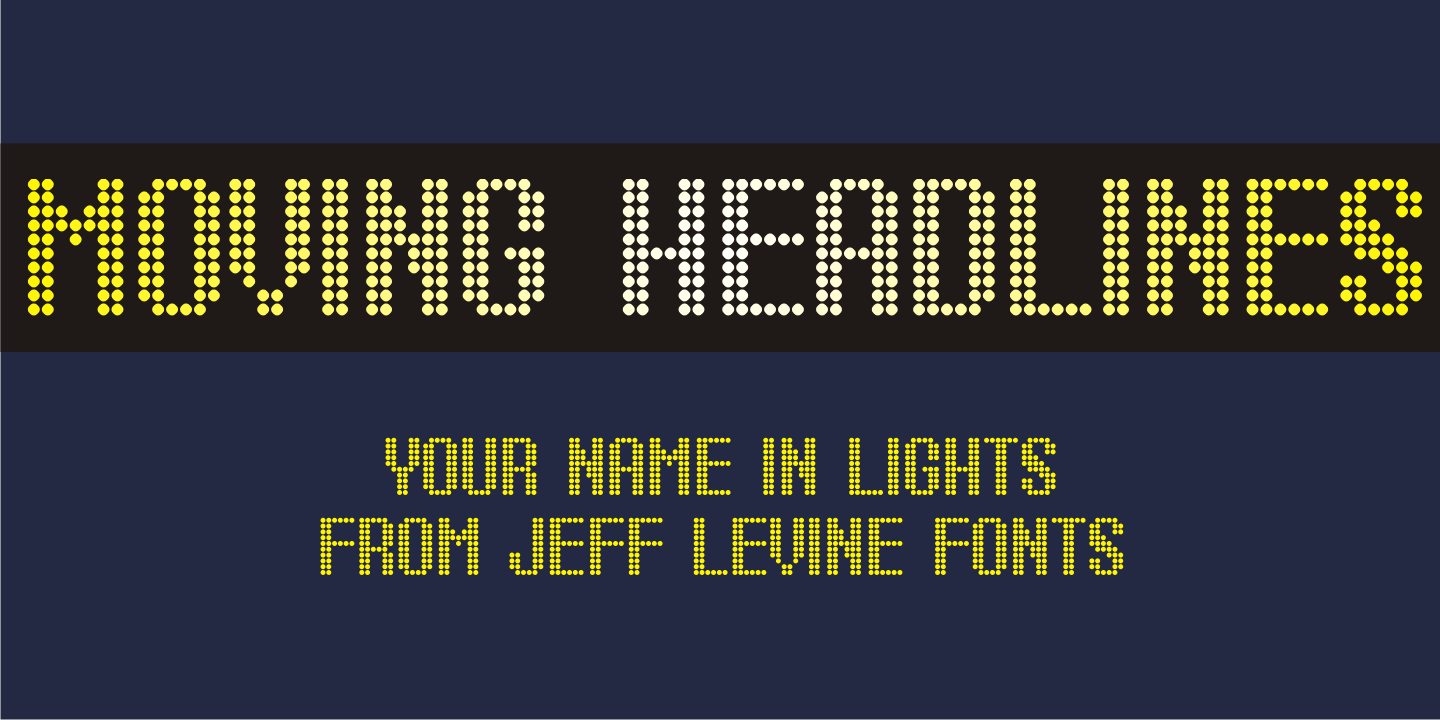
Moving Headlines
For decades, visitors to Times Square could look up and read the up-the-minute news flashes that moved across a giant electric sign on the face of the old New York Times Building (now known simply as One Times Square).
According to Wikipedia's article on OneTimes Square:
'On November 6, 1928, an electronic news ticker known as the Motograph News Bulletin (colloquially known as the "zipper") was introduced near the base of the building. The zipper originally consisted of 14,800 light bulbs and a chain conveyor system; individual letter elements (a form of movable type) were loaded into frames to spell out news headlines. As the frames moved along the conveyor, the letters themselves triggered electrical contacts which lit the external bulbs (the zipper has since been upgraded to use modern LED technology).”
An example of this was seen in the 1933 Warner Bothers film 'Picture Snatcher” starring James Cagney. This example inspired Moving Headlines JNL.